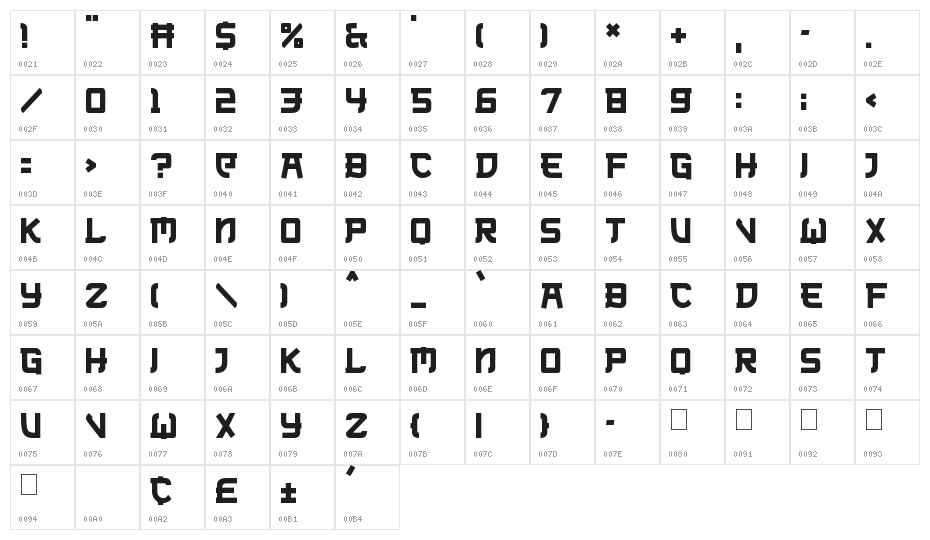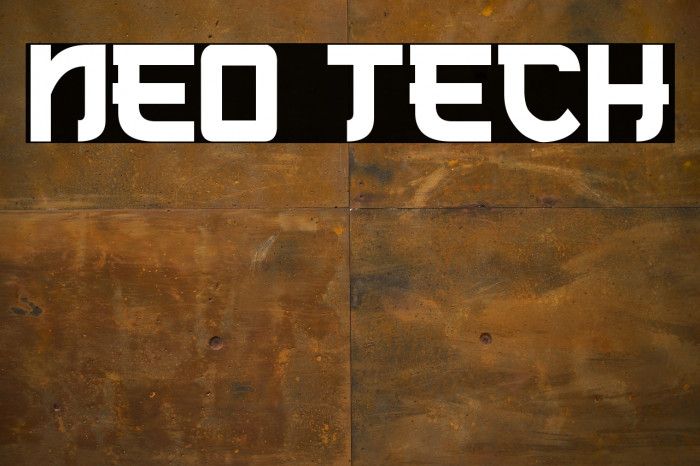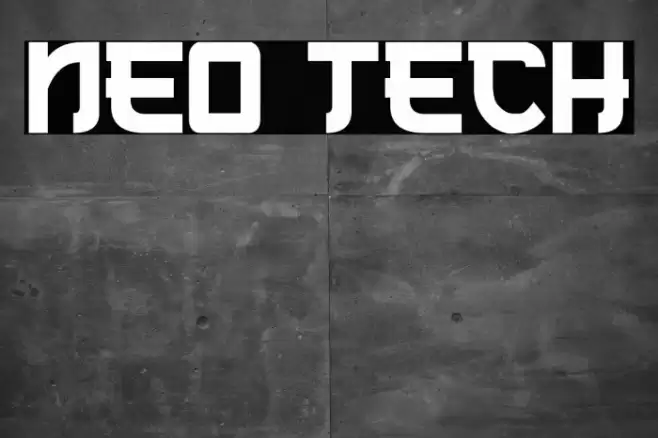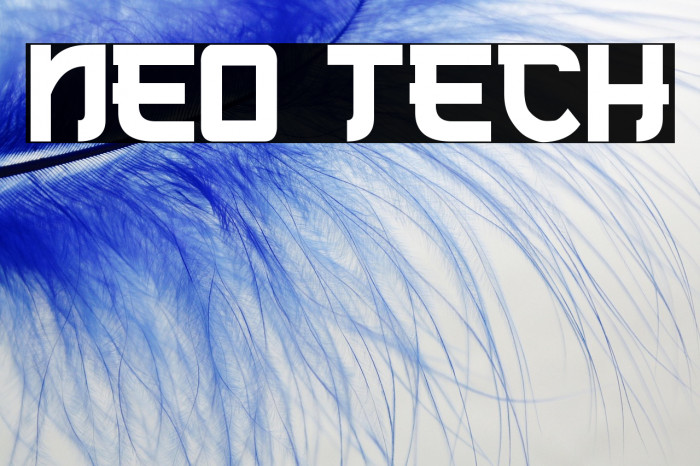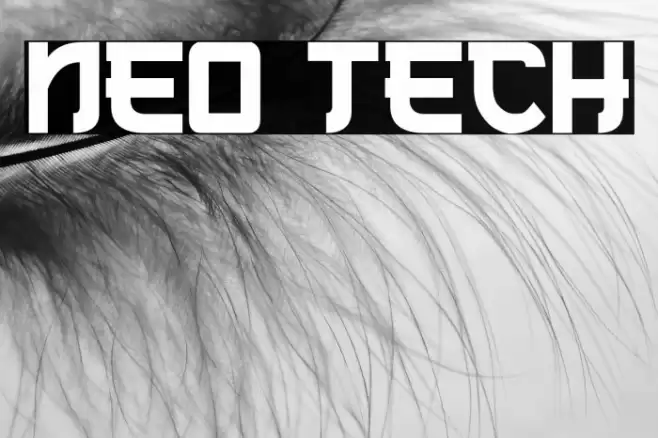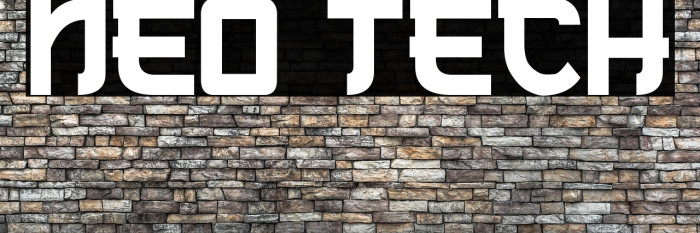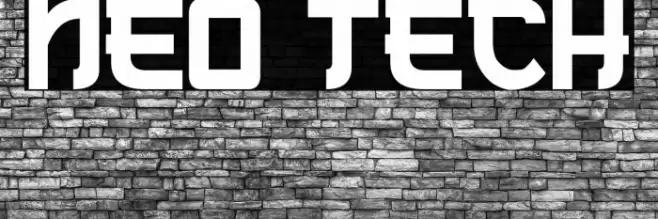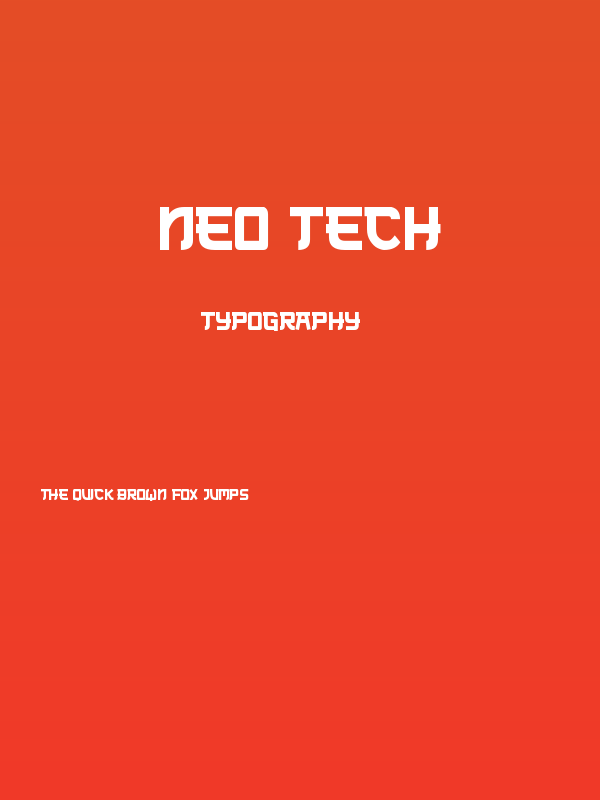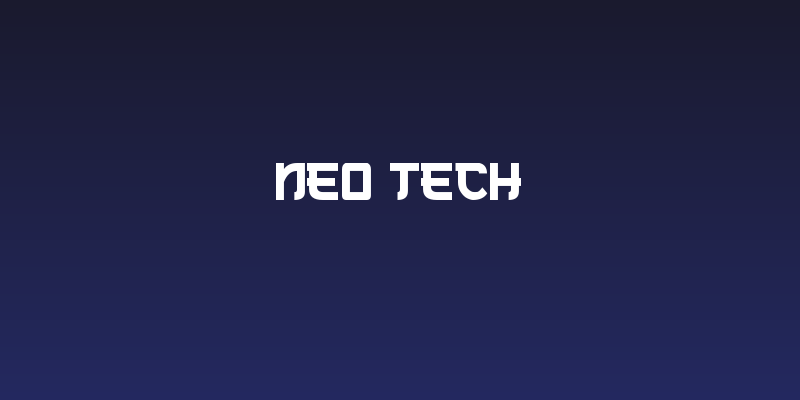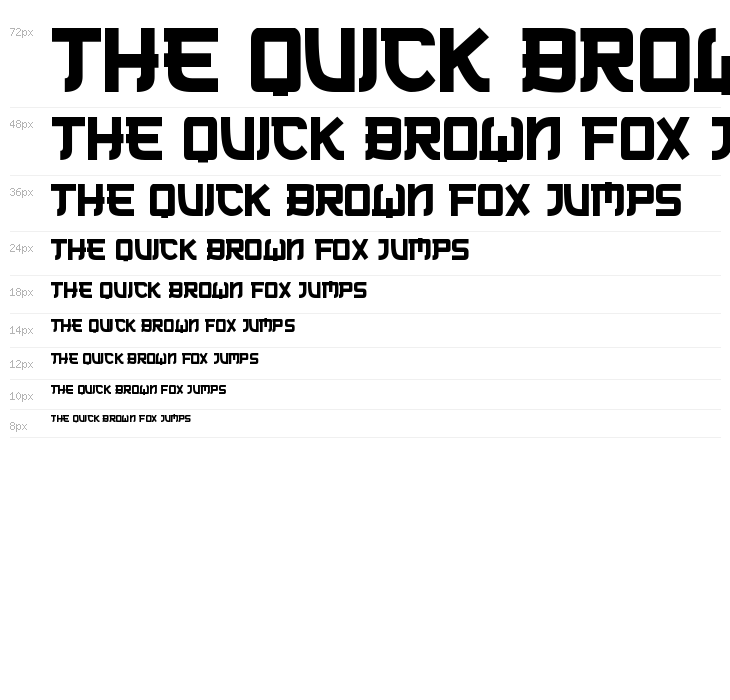
Neo Tech Font
Neo Tech Description
This font features a bold and geometric design with a futuristic aesthetic. The characters are constructed with thick, uniform strokes and sharp angles, giving it a strong and assertive presence. The uppercase letters are particularly striking, with a blocky and robust appearance that commands attention. The numerals and special characters maintain the same boldness and angularity, ensuring consistency across all glyphs. This font is ideal for projects that require a modern and impactful look, such as technology branding, sci-fi themes, or digital interfaces.
| Proposed Projects | Ideal for technology branding, sci-fi themes, digital interfaces, and modern advertising. |